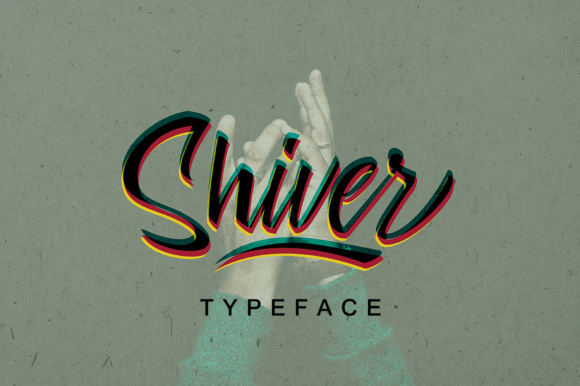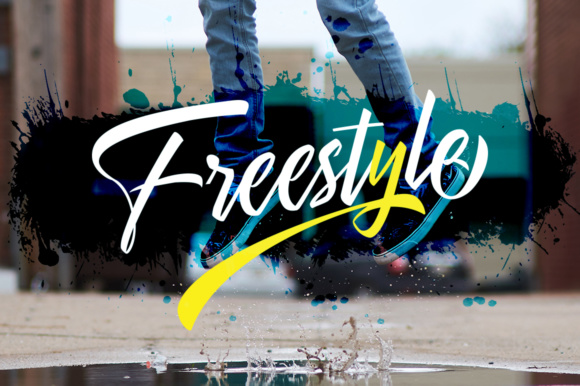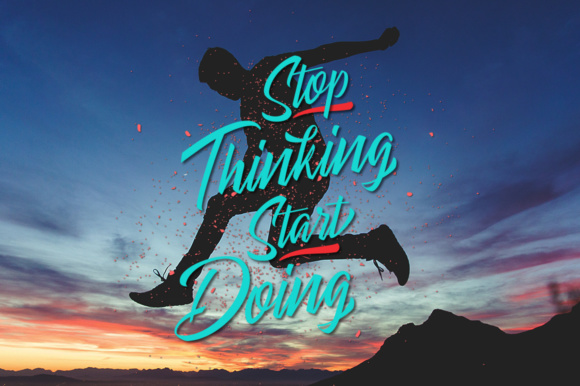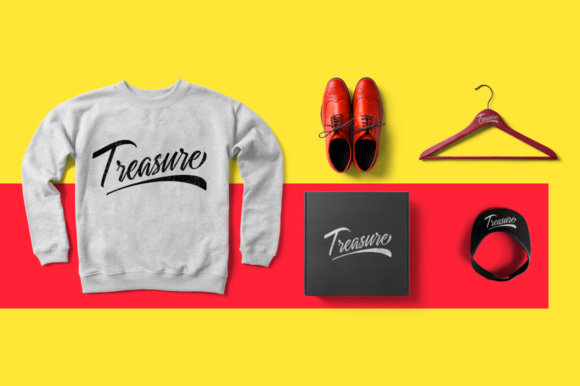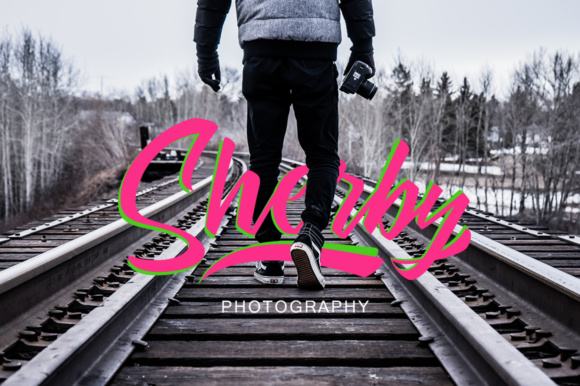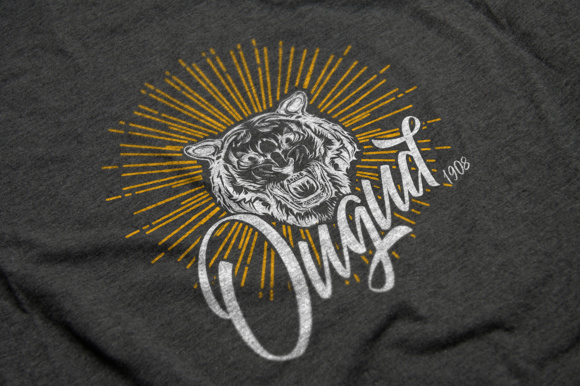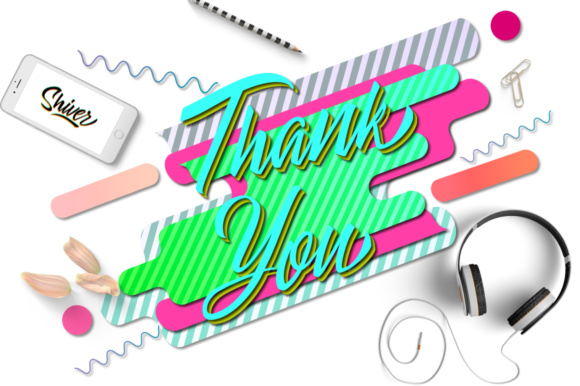
Shiver Font
About Shiver Font
Shiver is a gorgeous, painterly font that can add a beautiful appeal to your display designs! This font is both vintage inspired and wholly modern, and looks amazing in a large number of styles.